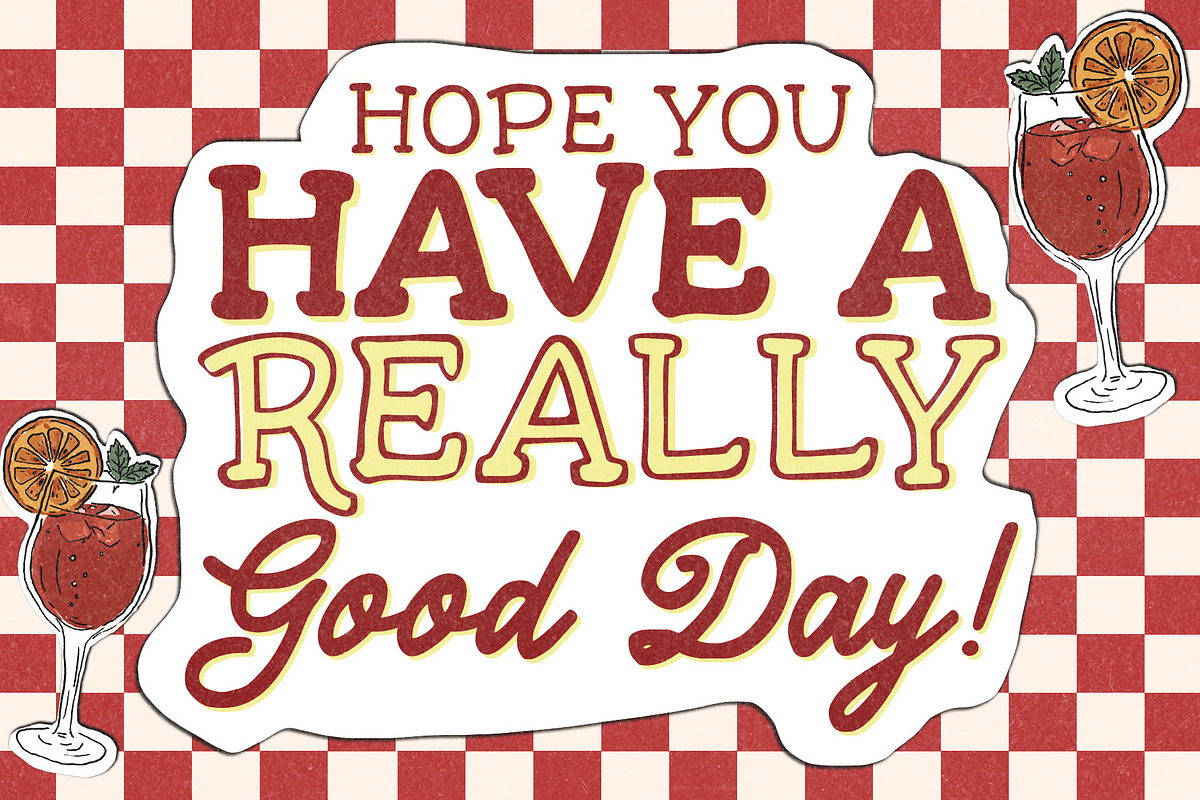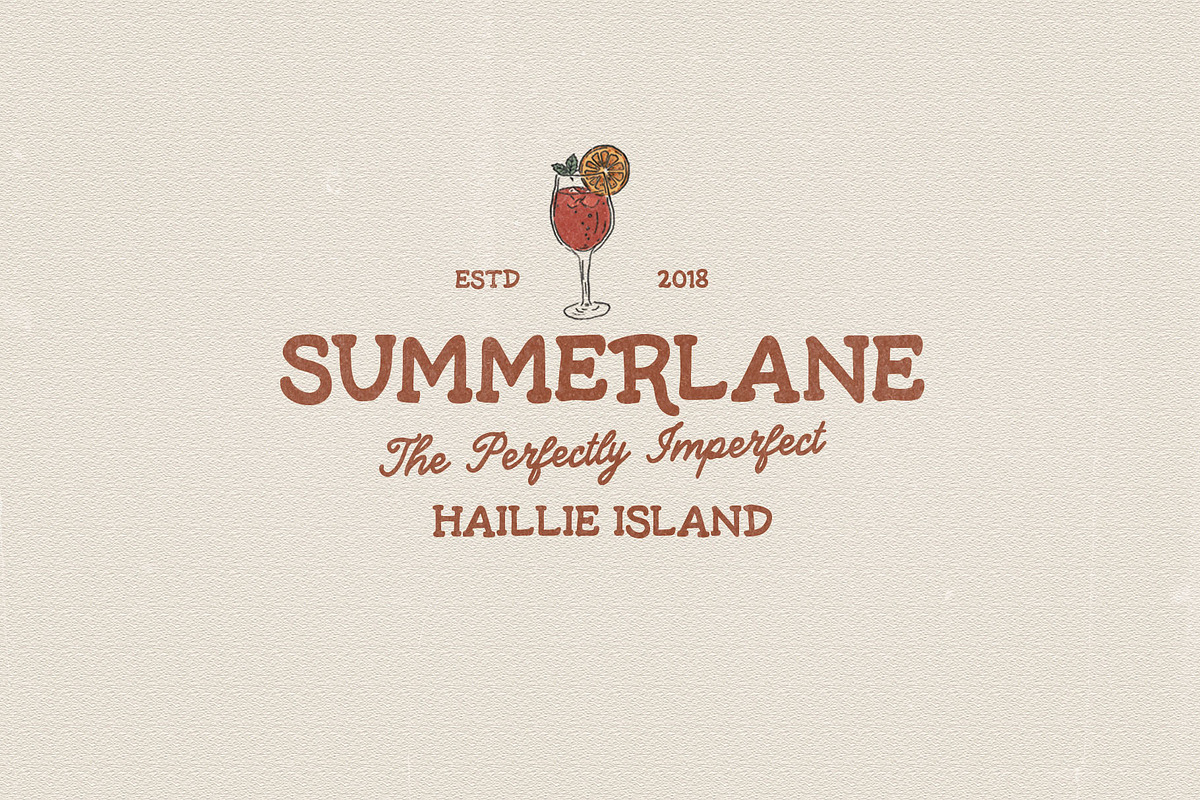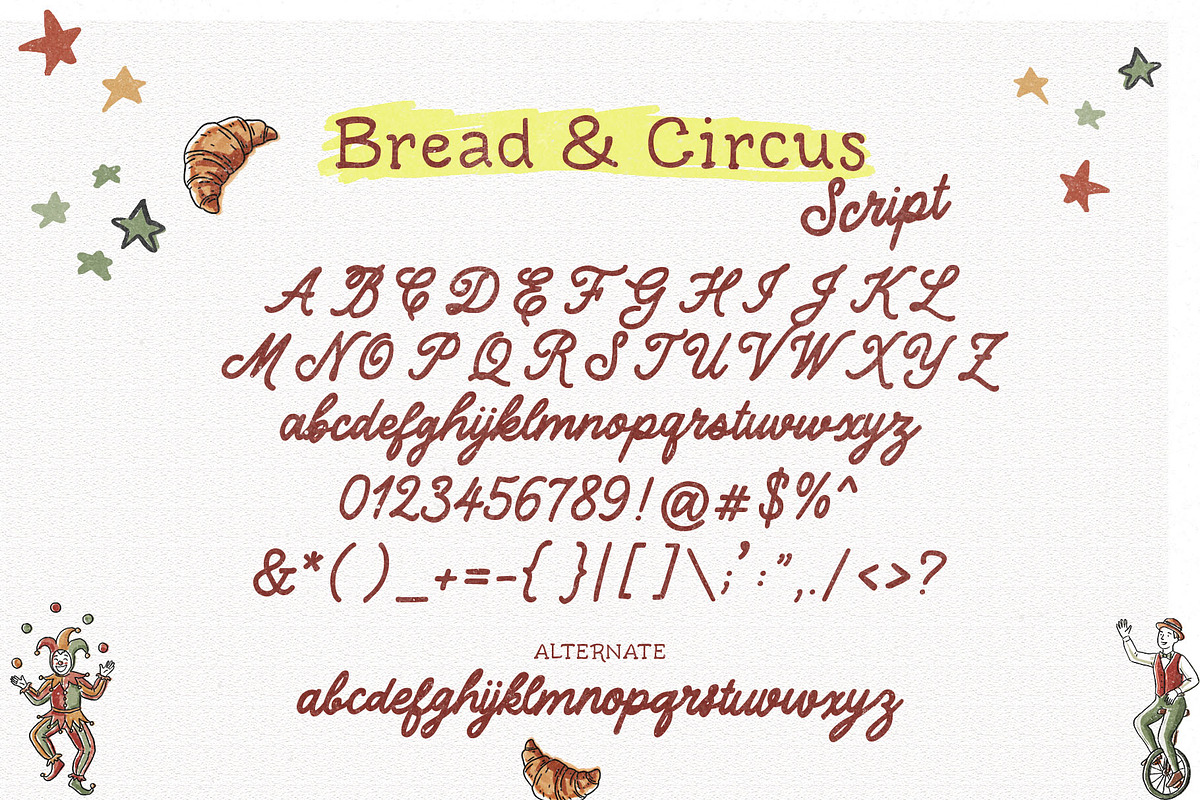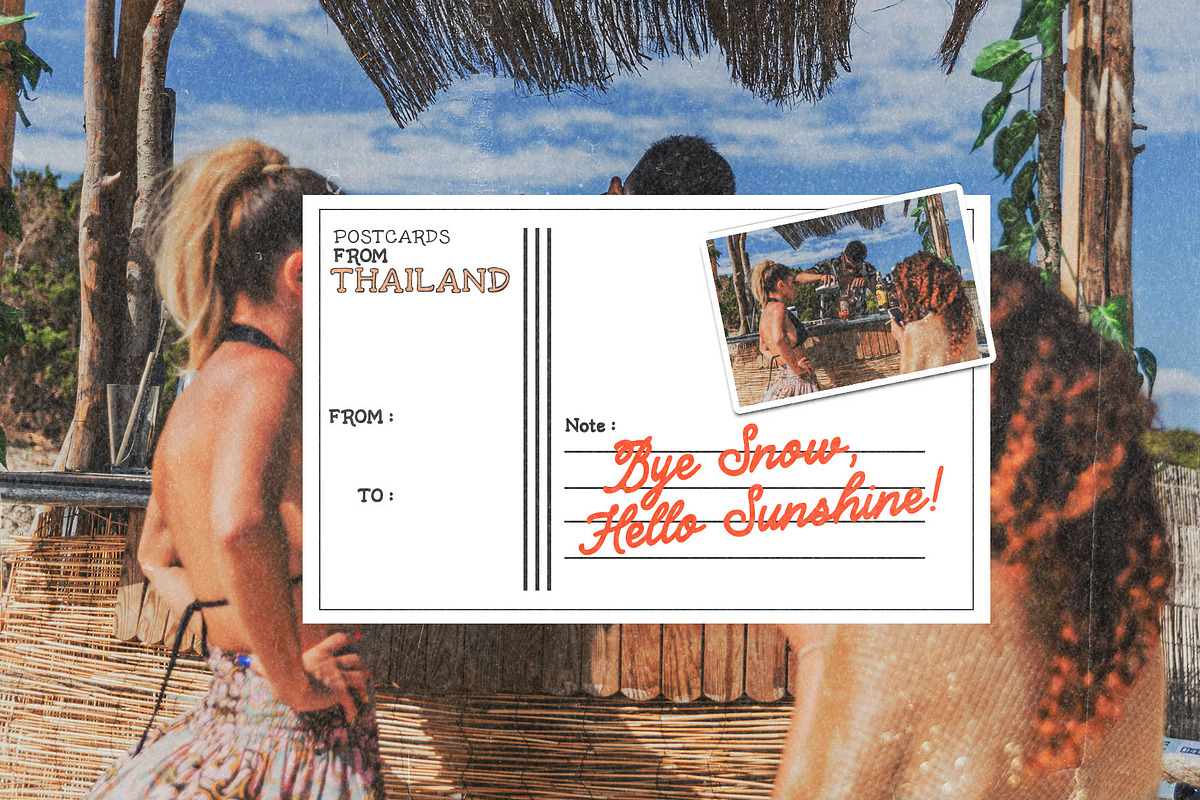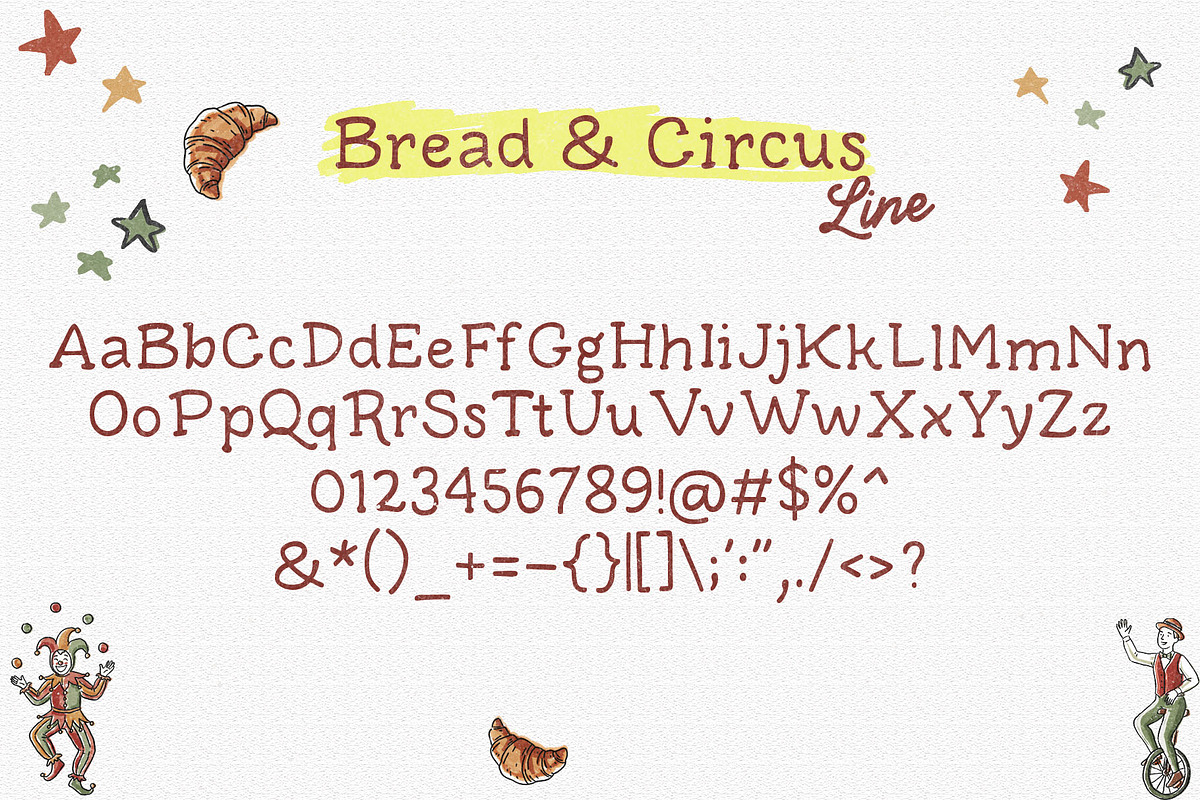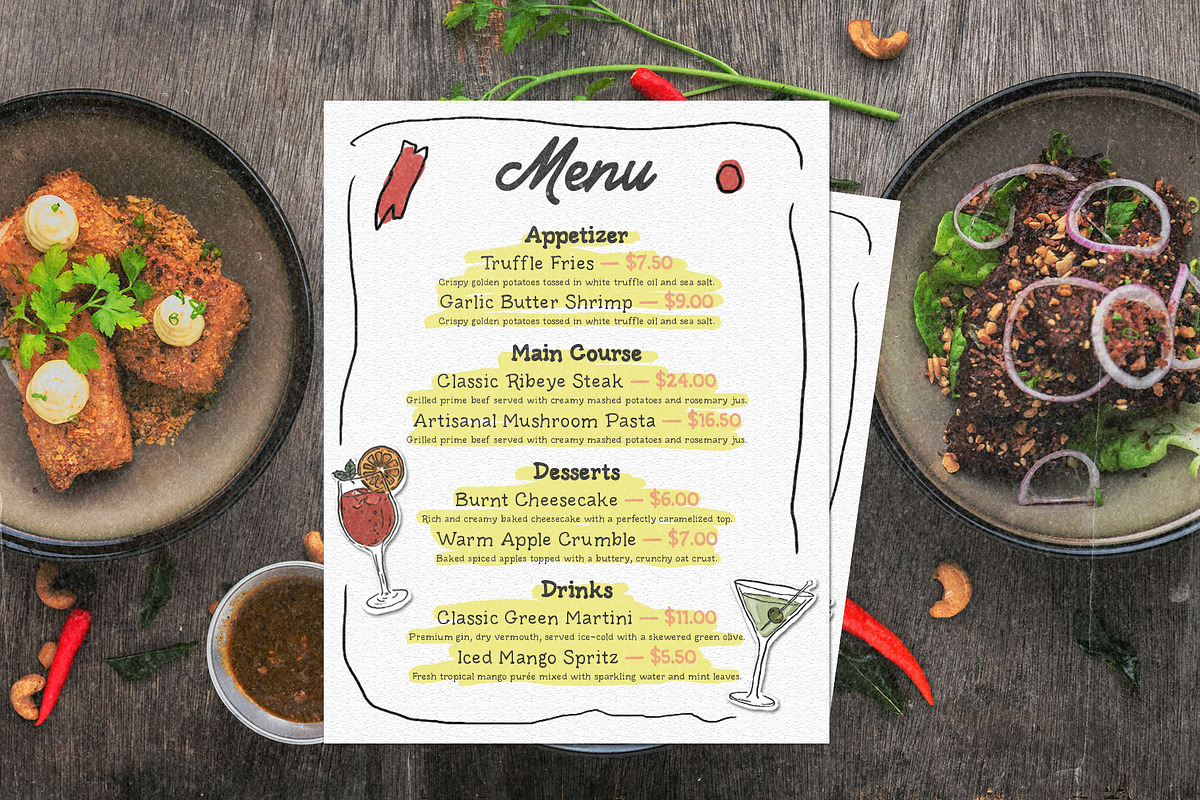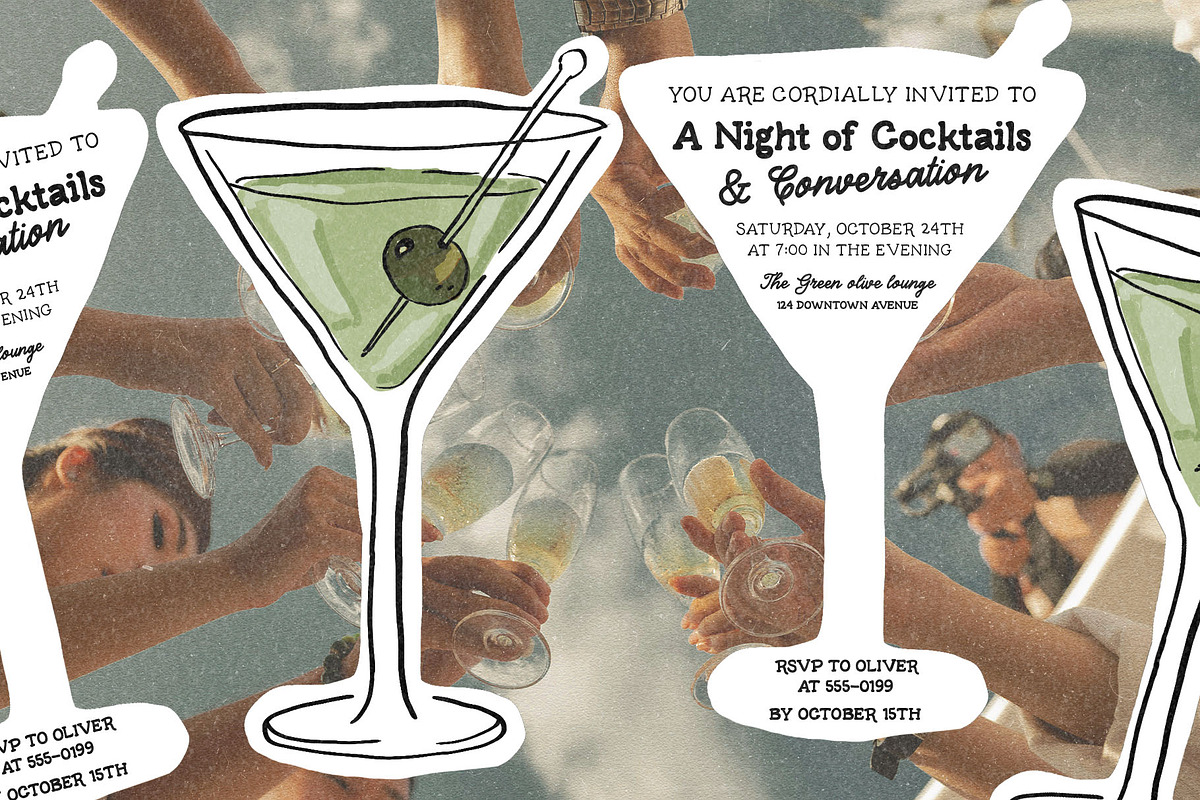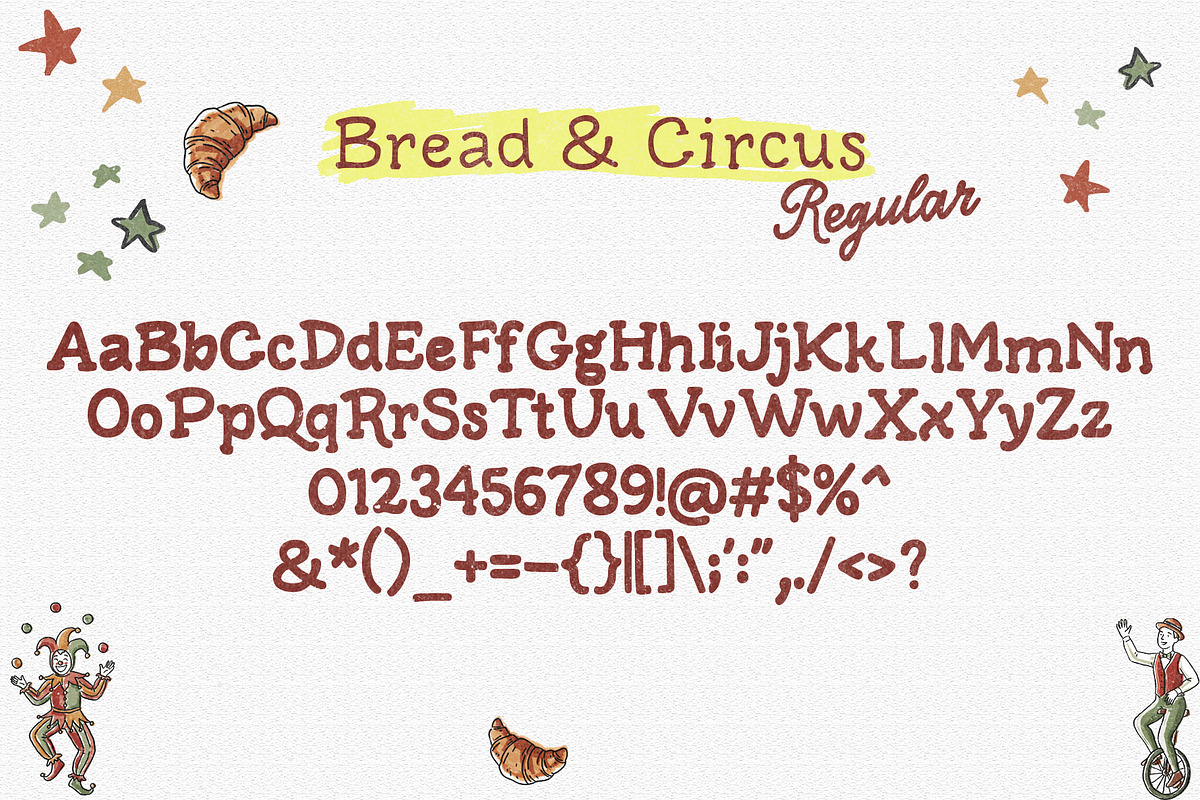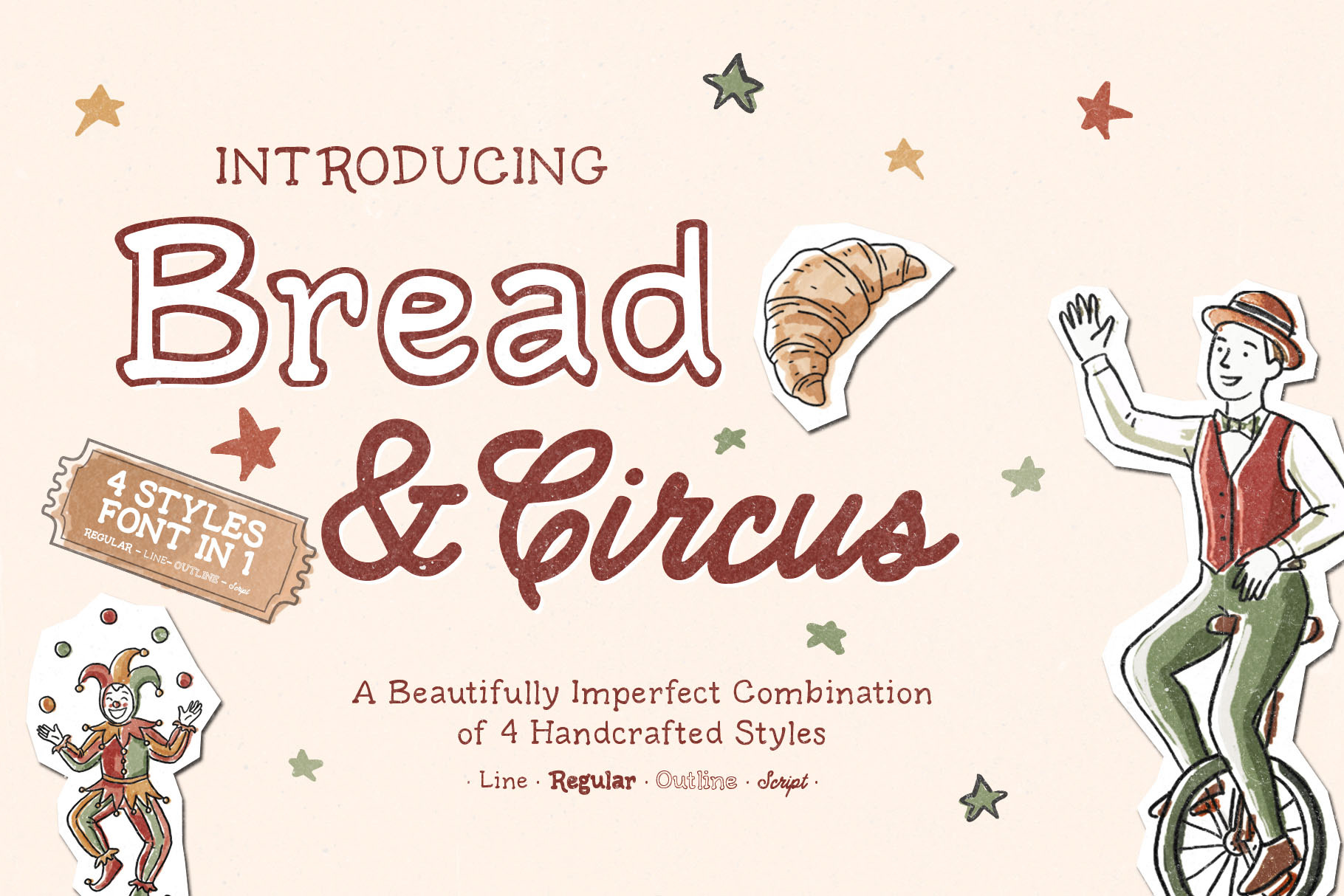
Bread And Circus | Artistic Font Duo
Step right up and feast your eyes on Bread and Circus, a beautifully imperfect, handcrafted font duo designed for storytellers, dreamers, and quirky branding! Inspired by vintage theatrical posters and artisanal bakery menus, this pack delivers the perfect balance between raw creative energy and clean, legible structure.
Bread and Circus is not just a single typeface; it is a versatile toolkit featuring 2 main font types and 4 distinct styles that complement each other flawlessly:
The Script Style: A flowing, expressive, and unapologetically raw handwriting font that adds instant human personality and charm to any headline.
The Regular Serif: A casual, stable, and highly legible hand-drawn serif designed for body text, subtitles, and clean typographic grids.
The Line Serif: A minimalist, sketch-like variation of the serif—perfect for subtle accents or a lighter visual hierarchy.
The Outline Serif: A hollowed-out, modern vintage variation that makes titles and subheaders pop without overwhelming the canvas.
Whether you are designing a cozy bakery logo, an artisanal cafe menu, a chic cocktail party invitation, nostalgic postcards, or editorial book covers, Bread and Circus gives your canvas that authentic, organic, touch-of-human feel.